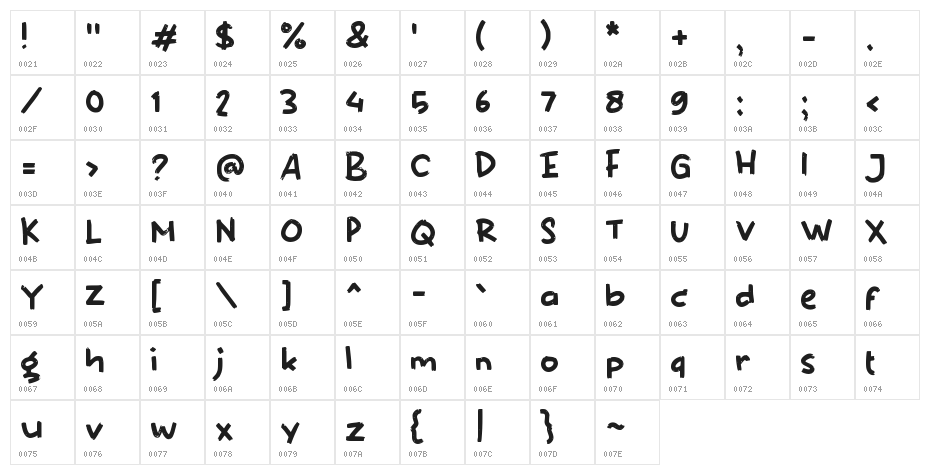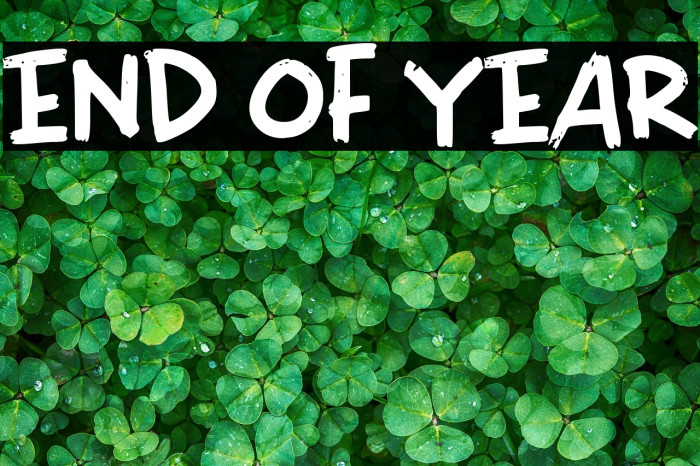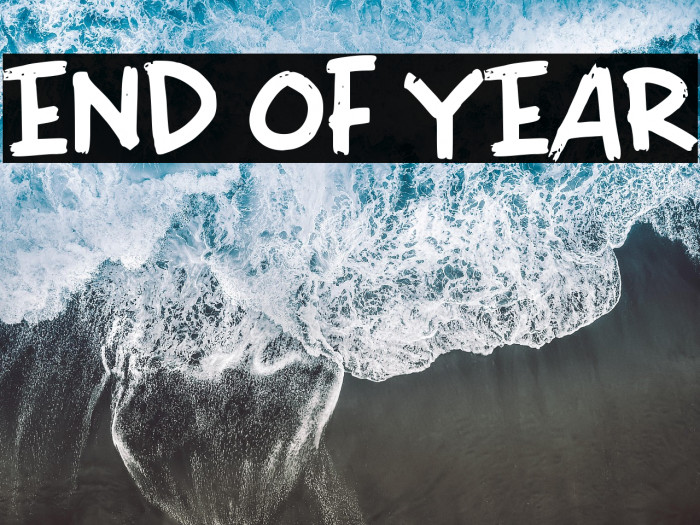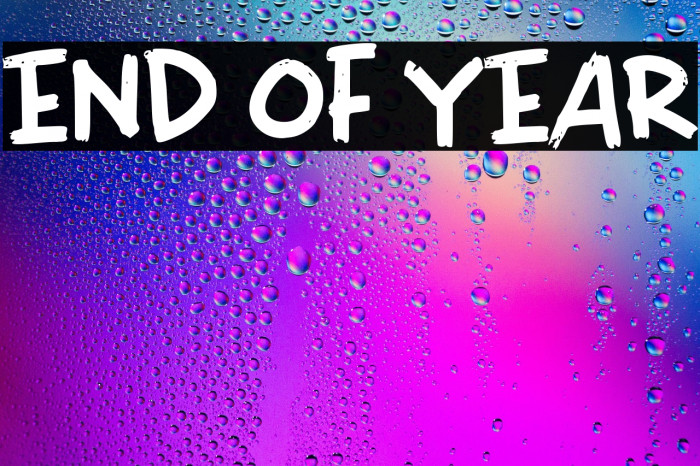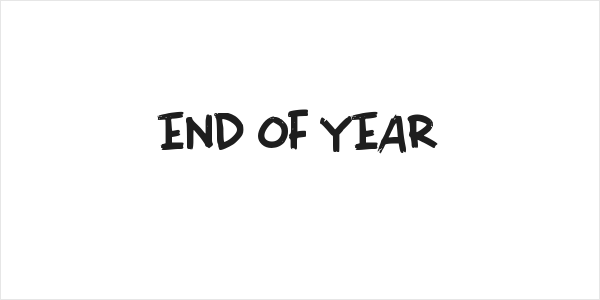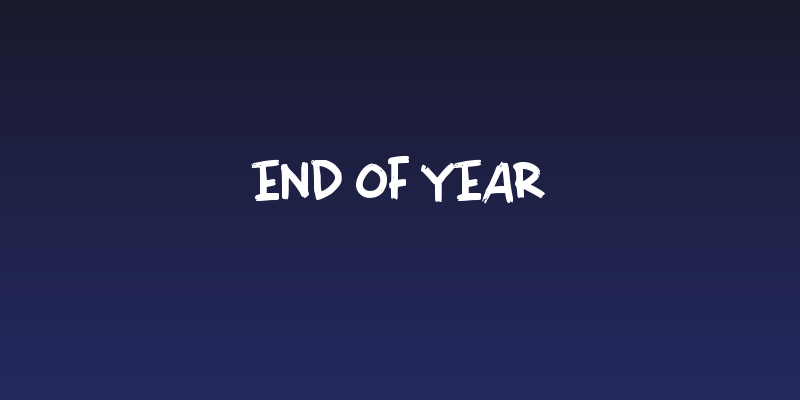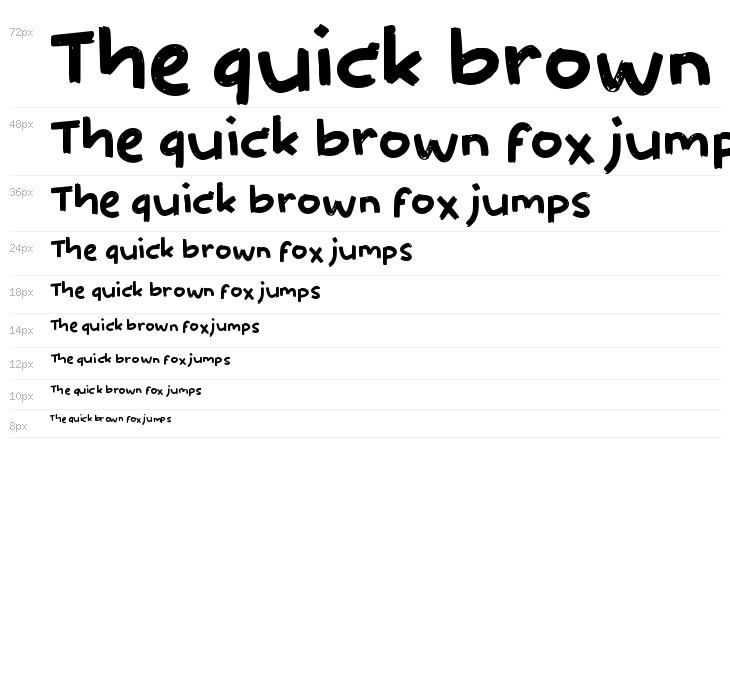
END OF YEAR Font
| Caso d'uso | Headlines, Posters, Branding |
| Progetti proposti | Perfect for children's books, comic strips, playful branding, and event posters. |